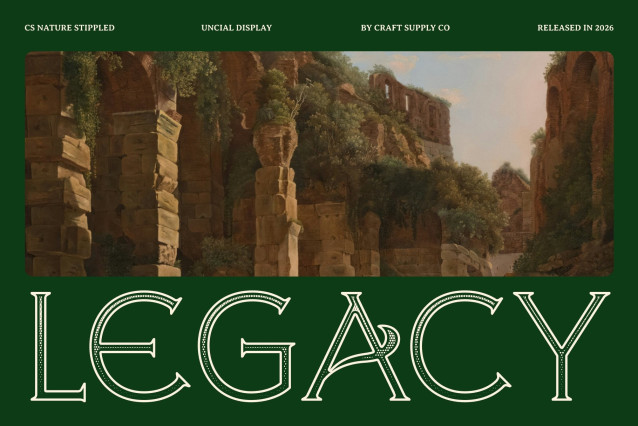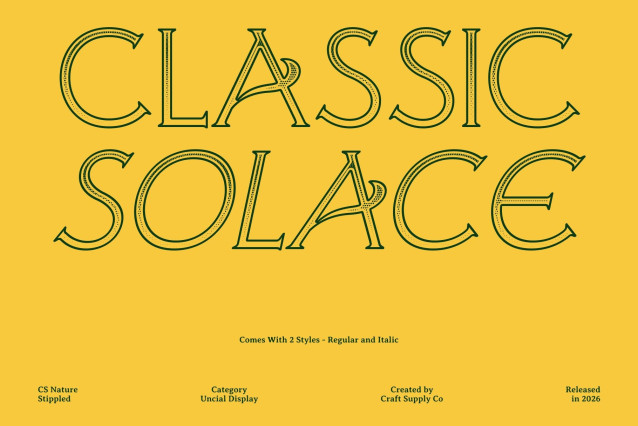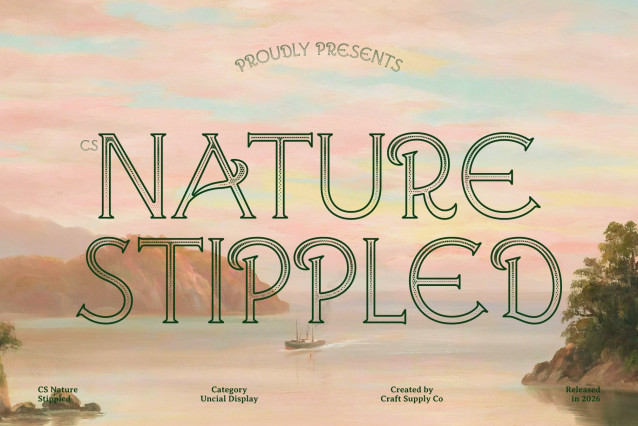
CS Nature Stippled Font
CS Nature Stippled – Uncial Font: Classical Elegance Meets Timeless Charm
Serif Display Font with Uncial Letterforms
This is a refined serif display font inspired by the graceful rhythm of uncial script. Its rounded, flowing letterforms evoke classical elegance and historical charm, bringing a sense of heritage and refinement to every composition.
Stippled Texture for Handcrafted Warmth
The stippled effect introduces a delicate dotted texture that recalls traditional ink and engraving techniques. This subtle detail enhances the handcrafted feel of the font, adding depth, softness, and an artisanal quality that enriches both print and digital designs.
Historical Influence with Modern Readability
Inspired by ancient calligraphy, this font soft curves and fluid strokes with balanced proportions for improved clarity. The result is a typeface that feels authentically vintage while remaining accessible and versatile for contemporary layouts.